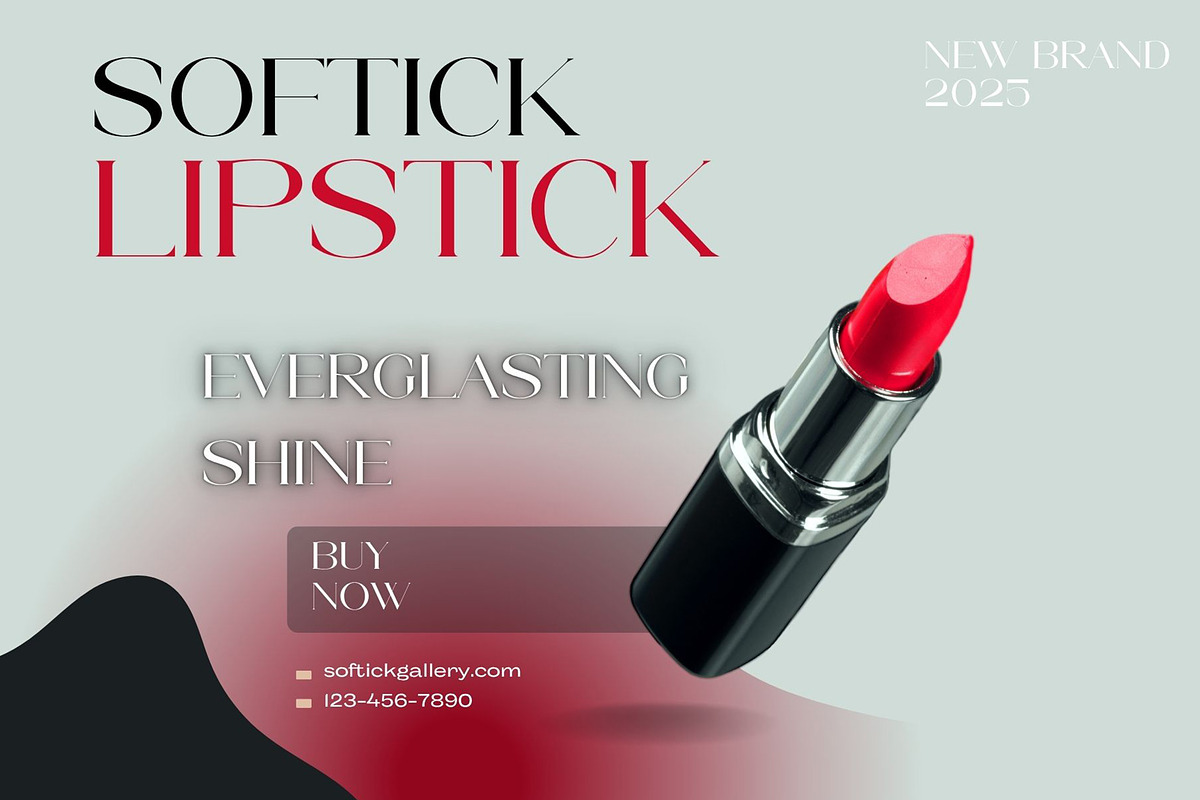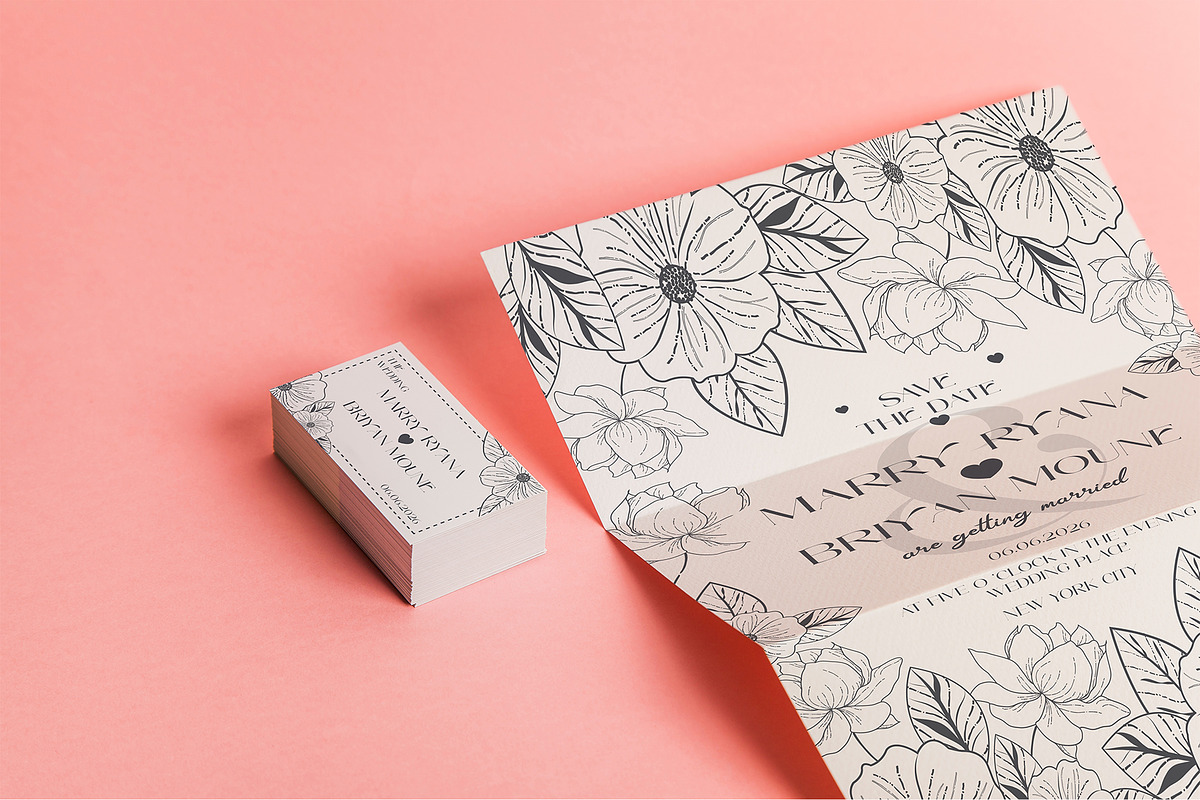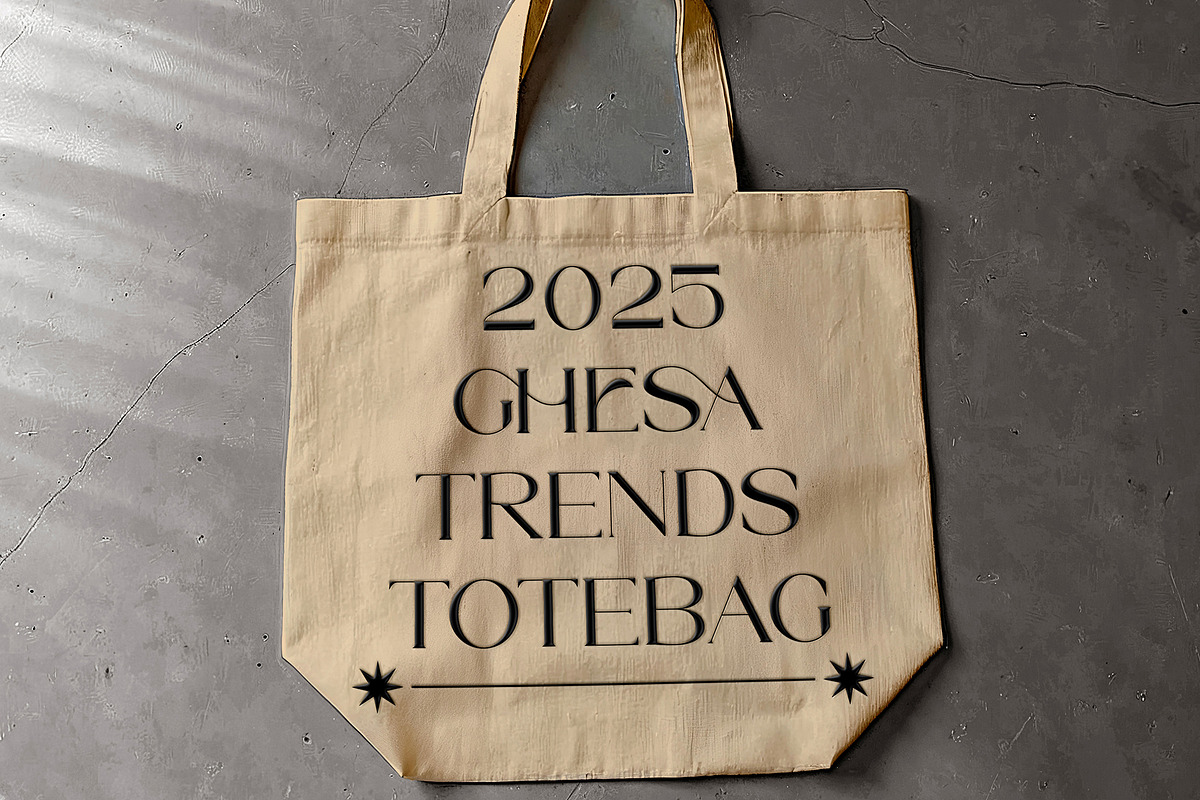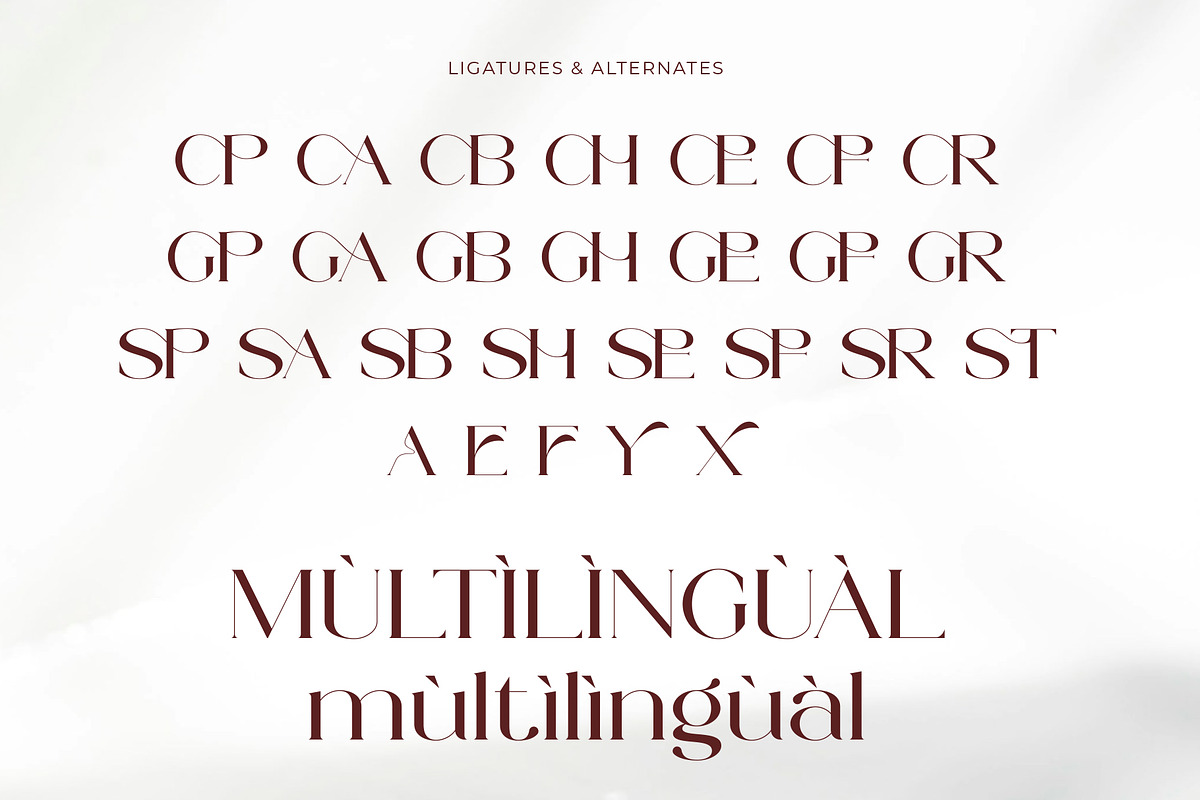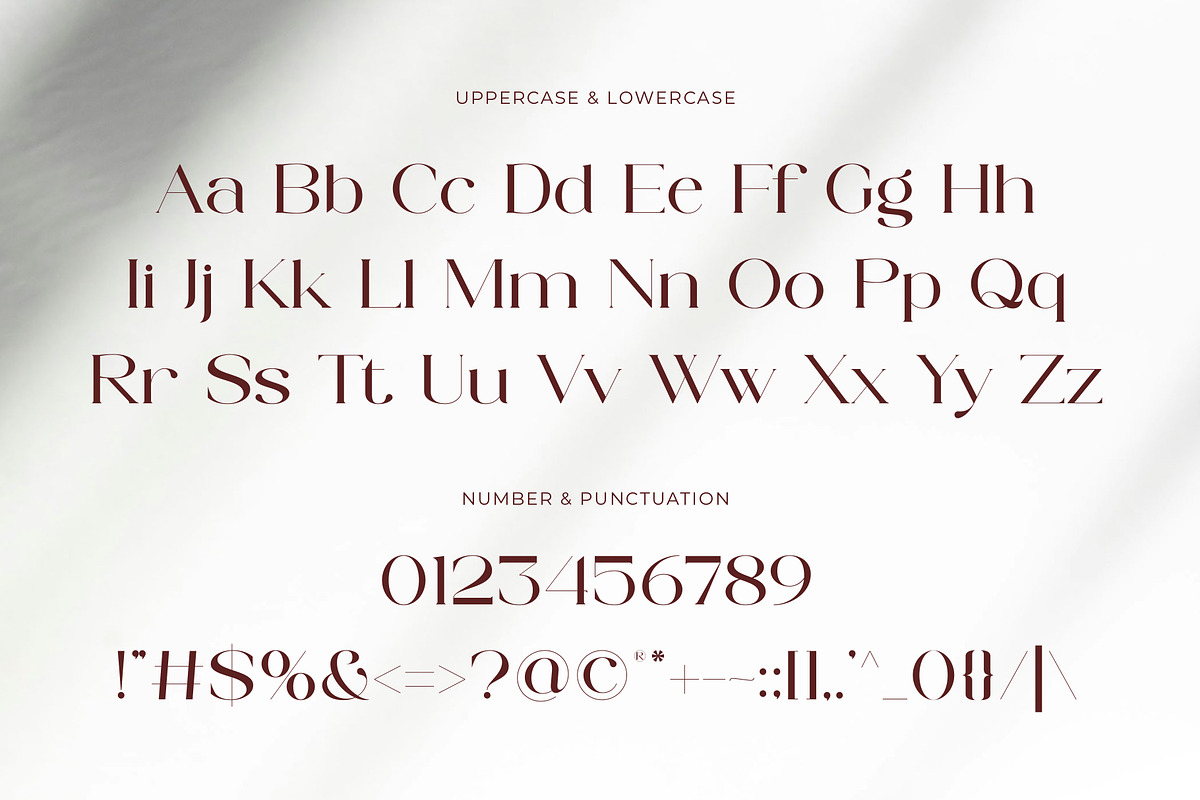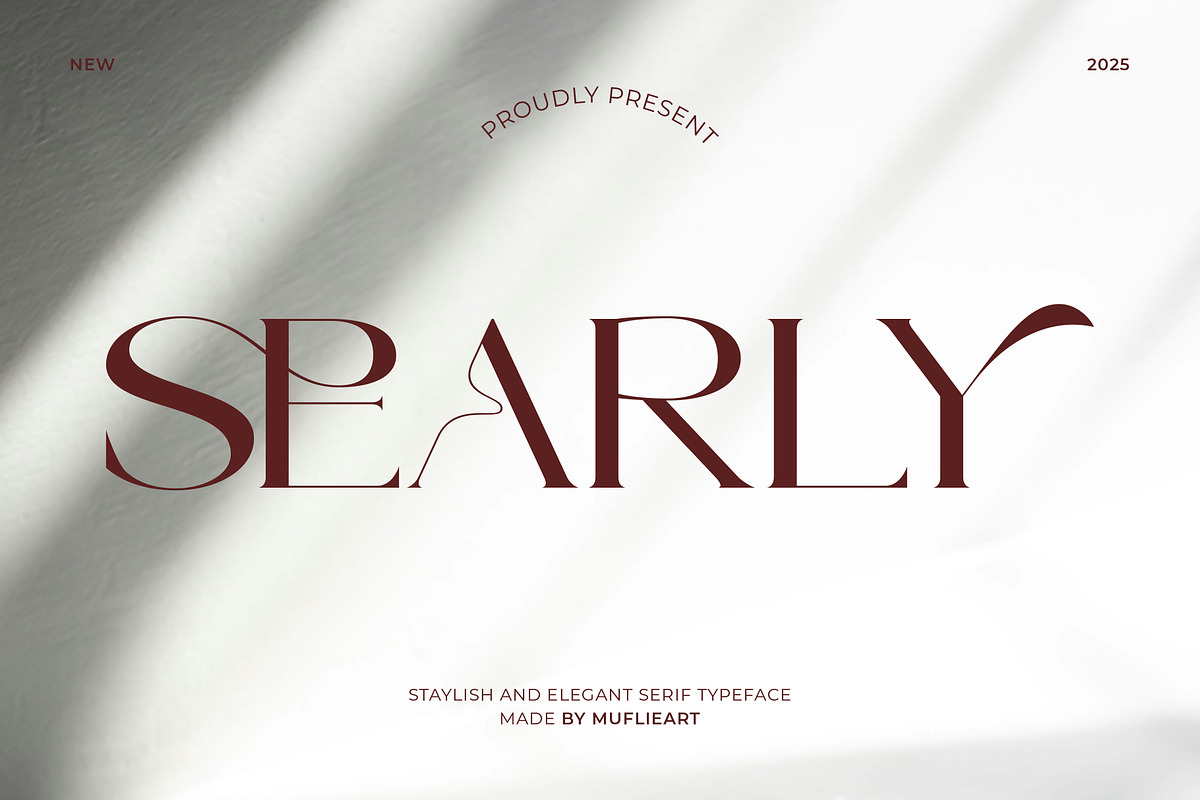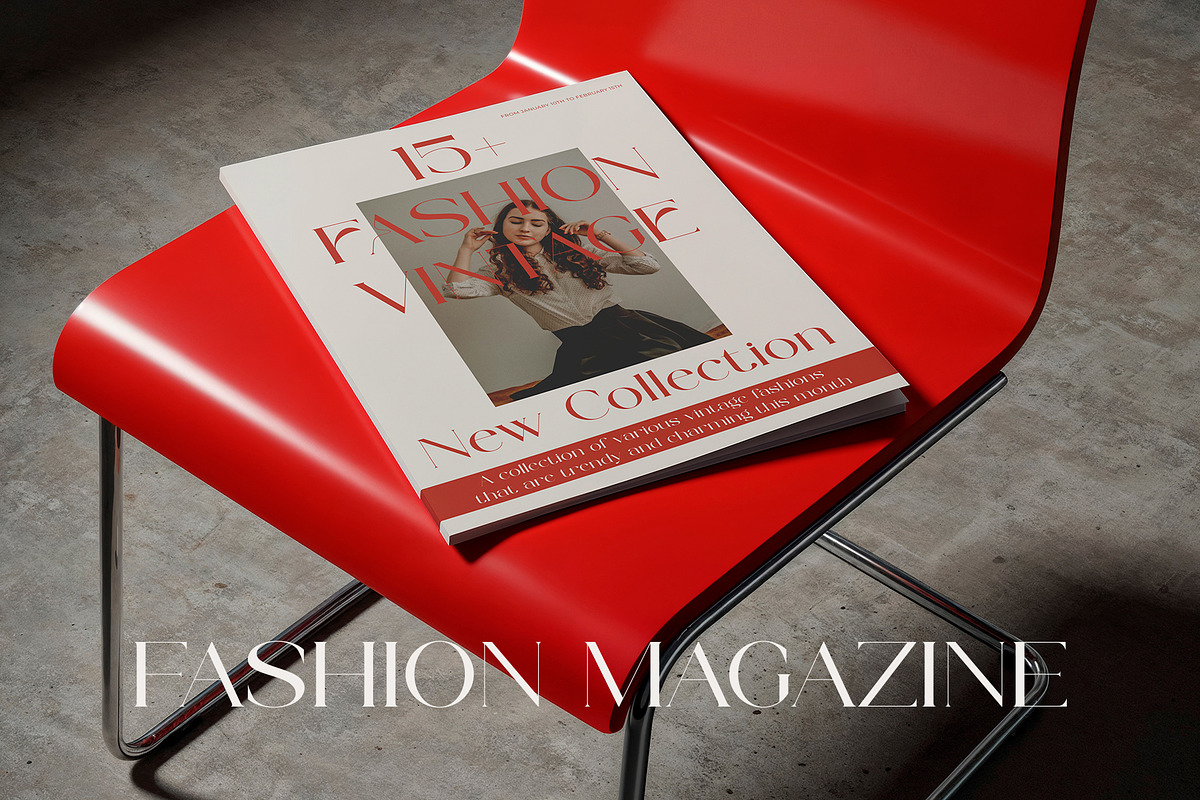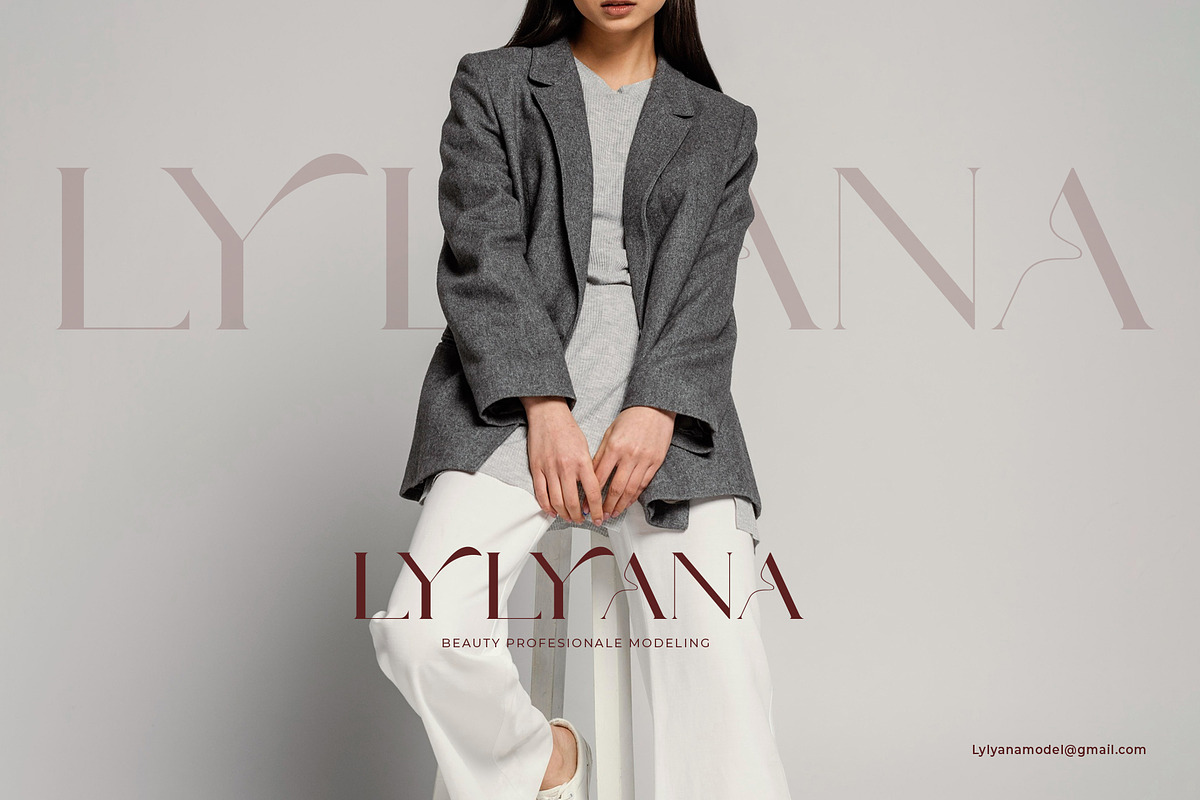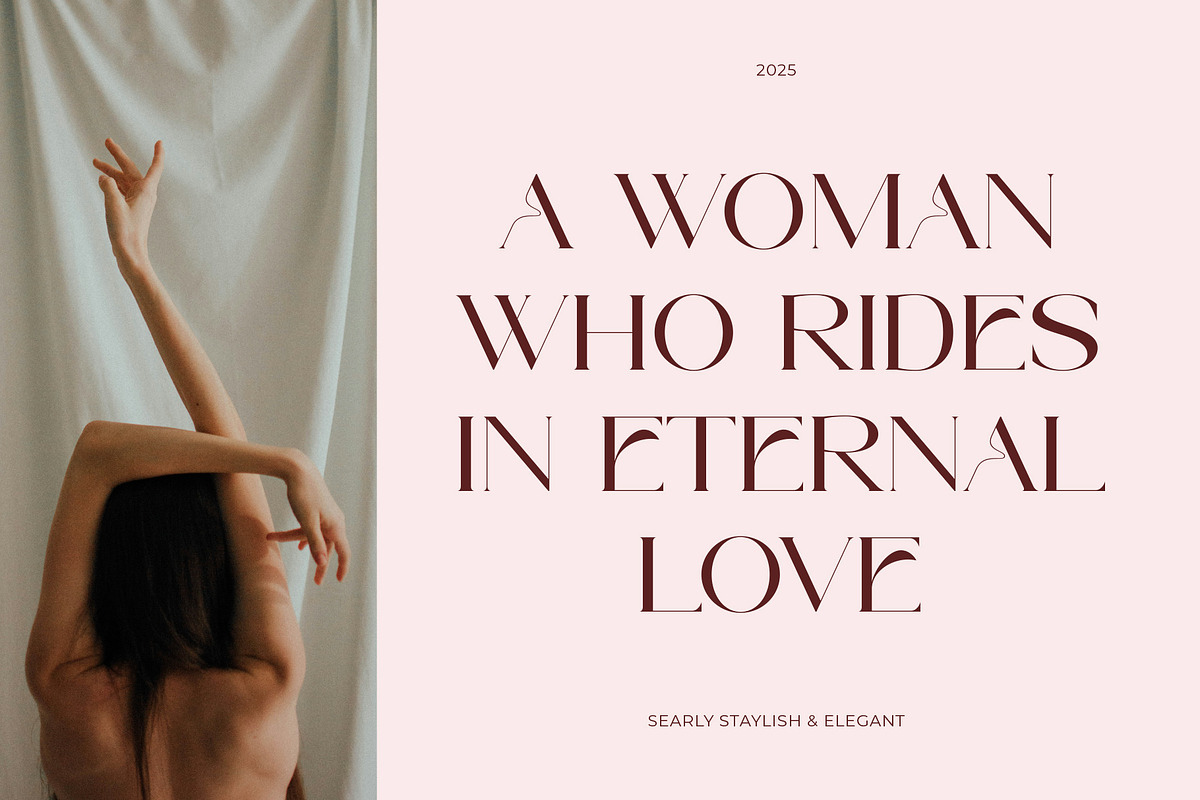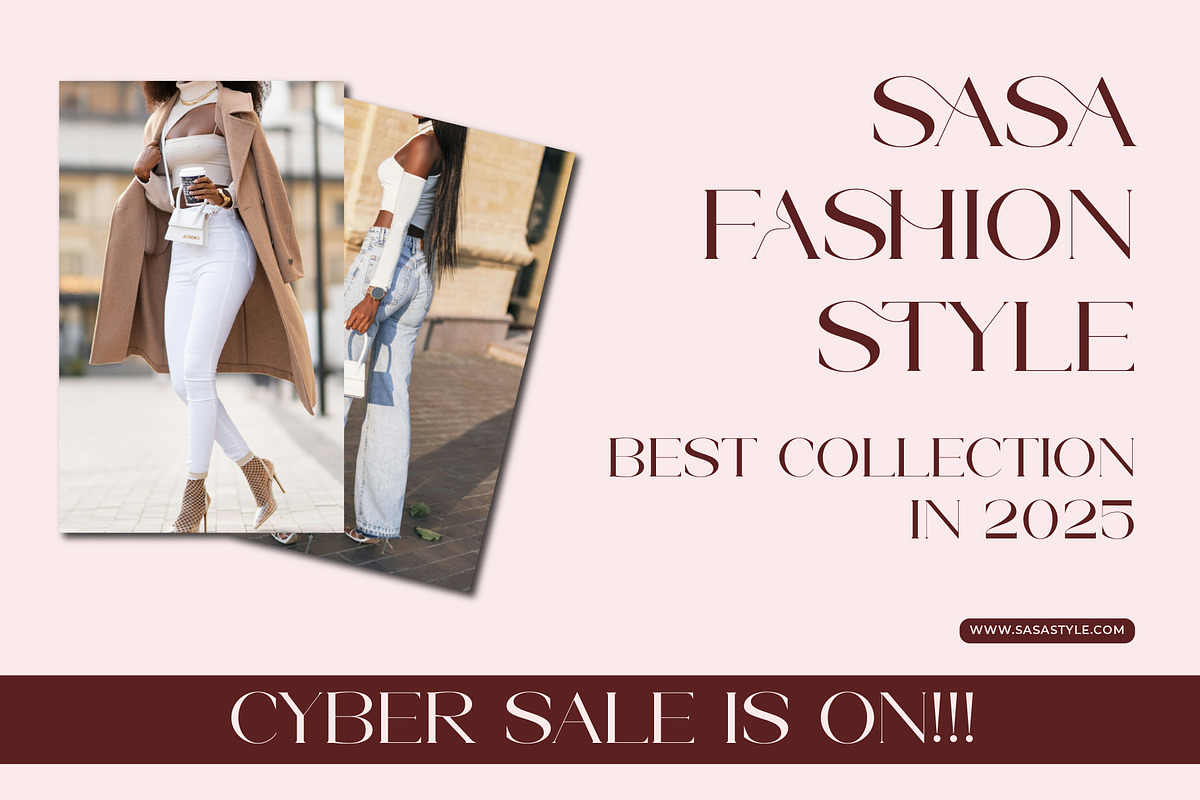
Searly - Staylish And Elegant
Searly –Staylish And Elegant Serif Typeface is the perfect choice for those looking for a modern serif font with an elegant and captivating touch. Designed with fine details and balanced letterforms, this font provides a professional yet artistic feel for a variety of design needs.
This font features:
- Full alphabet A–Z (uppercase & lowercase)
- Multilingual support (supports various international languages)
- Stylistic alternates for a more varied and creative design look
With a modern, elegant, and timeless style, Matreal Beauty will make your designs stand out, look professional, and classy.